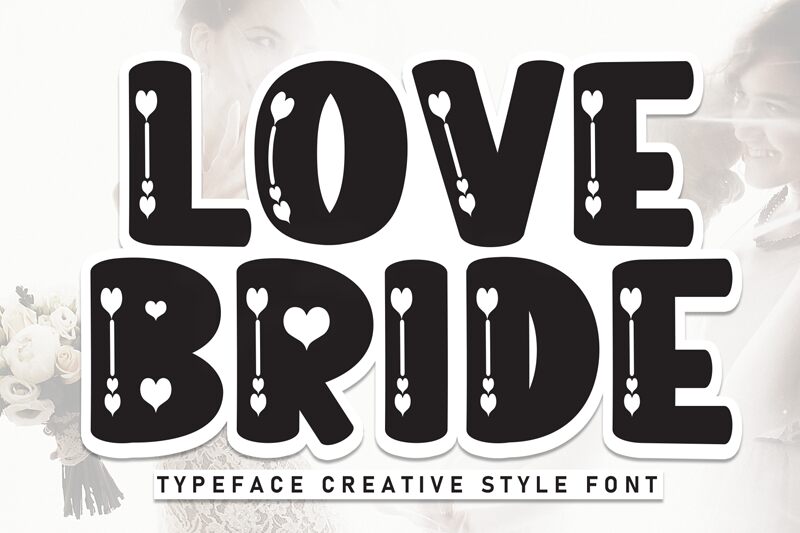
Love Bride font by Scratchones captures the essence of romance and whimsy, making it a perfect choice for your special holiday themes. This free decorative font beautifully combines contemporary and casual elements with its charming shapes and rounded style. Engaging and eye-catching, it's sure to add a touch of uniquely thematic elegance to all sorts of projects.
Designers can employ Love Bride font in love letters, greeting cards, funky posters, photo captions, and decoration of special gifts. Use the typeface in product packaging design, branding, book covers, webpage headlines, advertising materials, apparel prints, and social media banners.